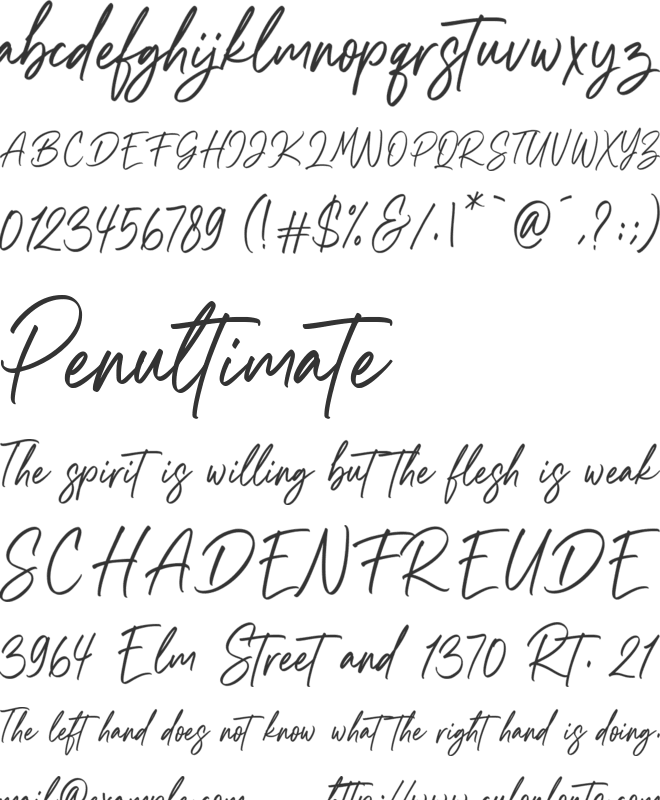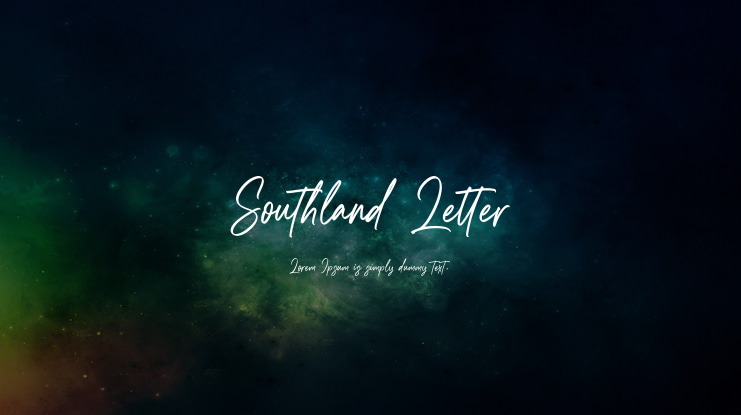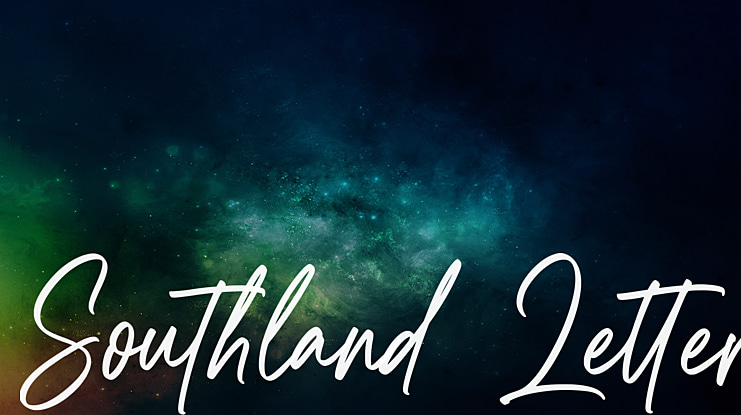
Southland Letter Font
Southland Letter Handwritten Font. Made from natural pen. it will make your design project more beautiful. The font is suitable for any design like branding, fashion, print template, quotes, wedding and etc.By installing or using this font, you are agree to the Product Usage Agreement:- This font is already FULL VERSION and ONLY for PERSONAL USE. NO COMMERCIAL USE ALLOWED!- Here is the link to purchase COMMERCIAL LICENSE:===========================================================https://hanzelspace.com/product/southland-letter-handwritten-font/===========================================================ATTENTION :WARNING!!!PENGGUNAAN FONT UNTUK KOMERSIL TANPA MEMBELI LISENSI RESMIDARI hanzelspace.com MAKA DIKENAKAN BIAYA PEMBELIAN LISENSI MINIMAL 5X DARI HARGA LISENSI !!!!IMPORTANT NOTES FOR Southland Letter FONT USERS:USE OF FONT FOR COMMERCIAL WITHOUT BUYING OFFICIAL LICENSEFROM hanzelspace.com THEN PURCHASE FEES FOR PURCHASE LICENSE OF 5X MINIMUM LICENSE FROM THE LICENSE !!!!